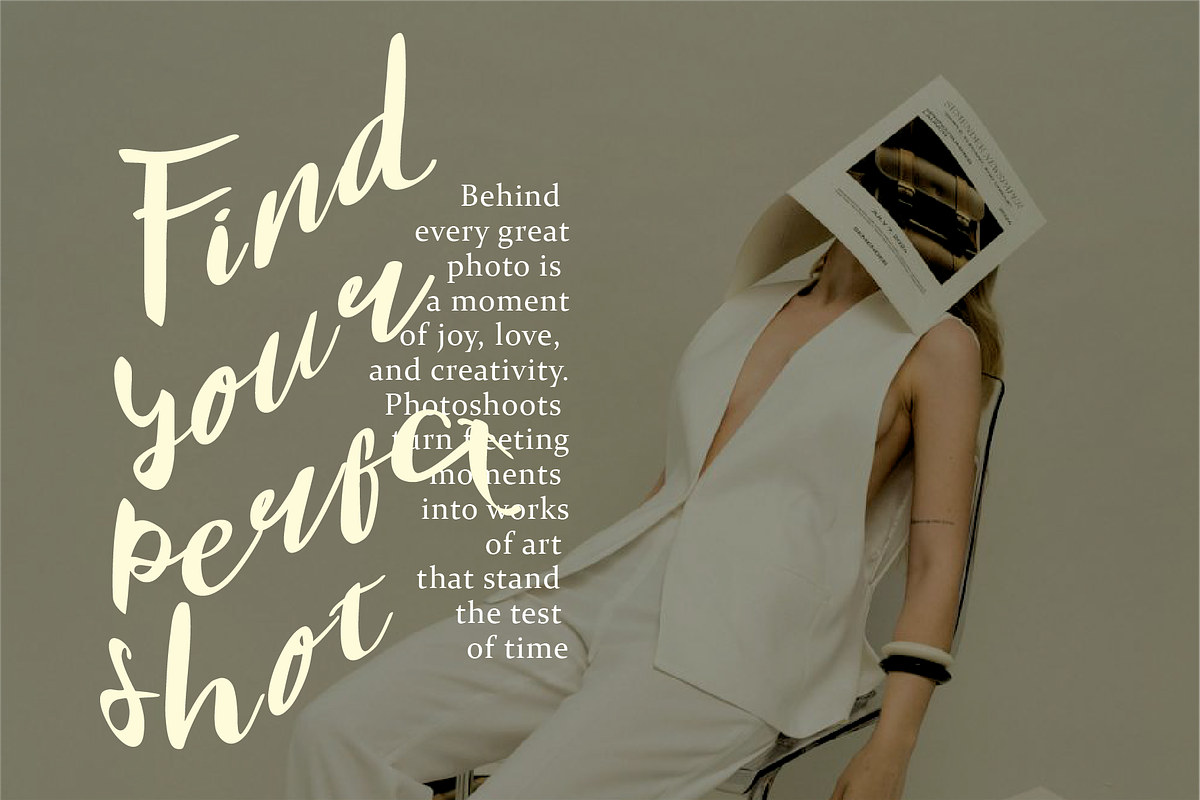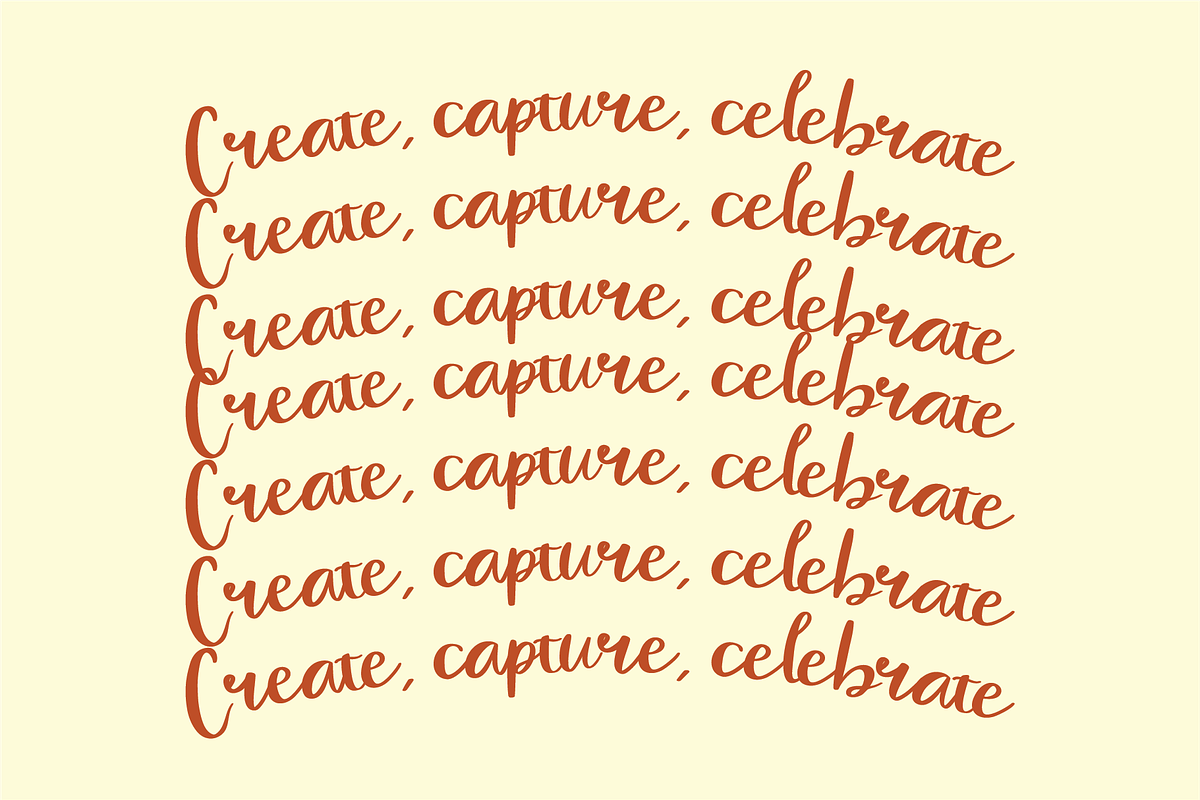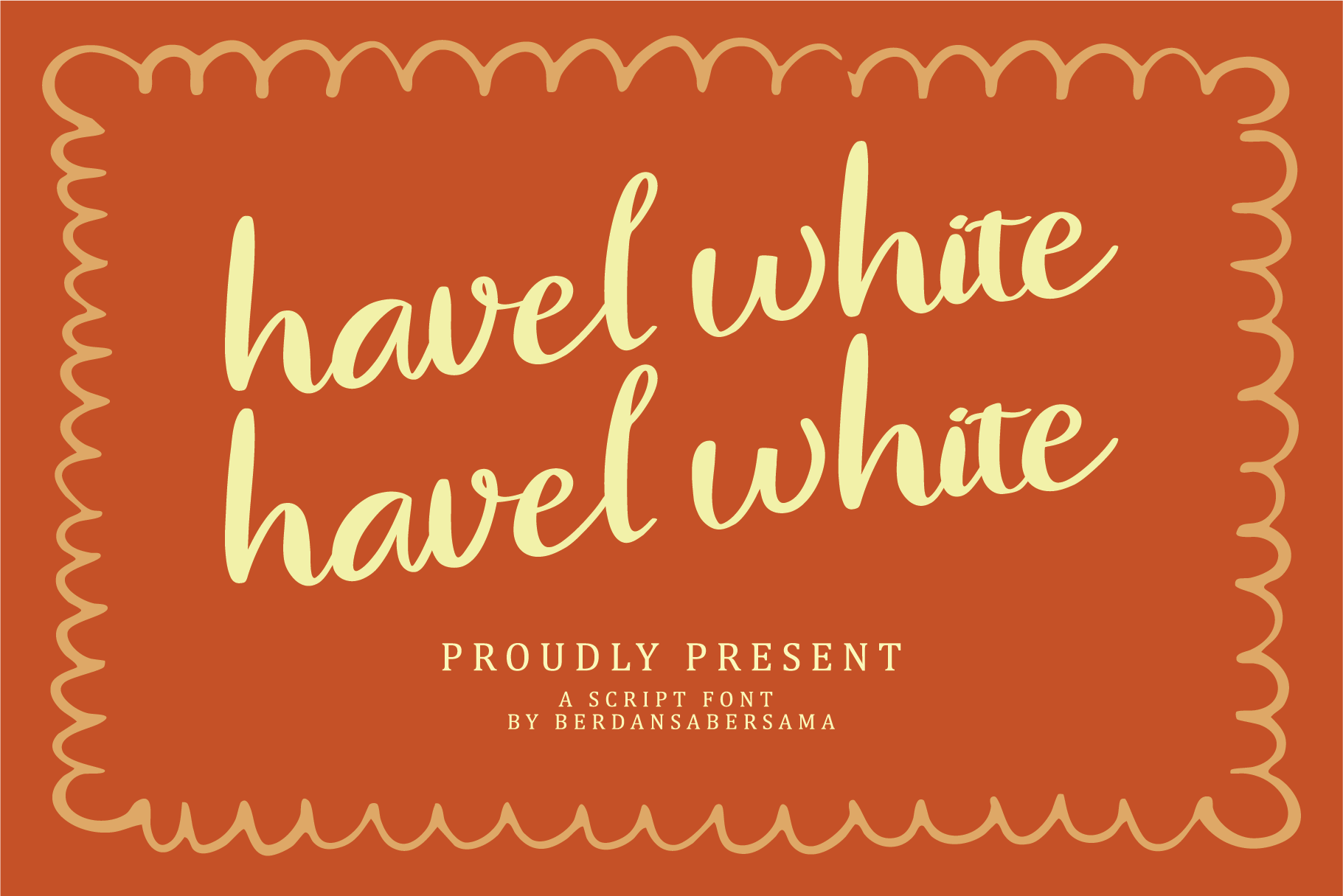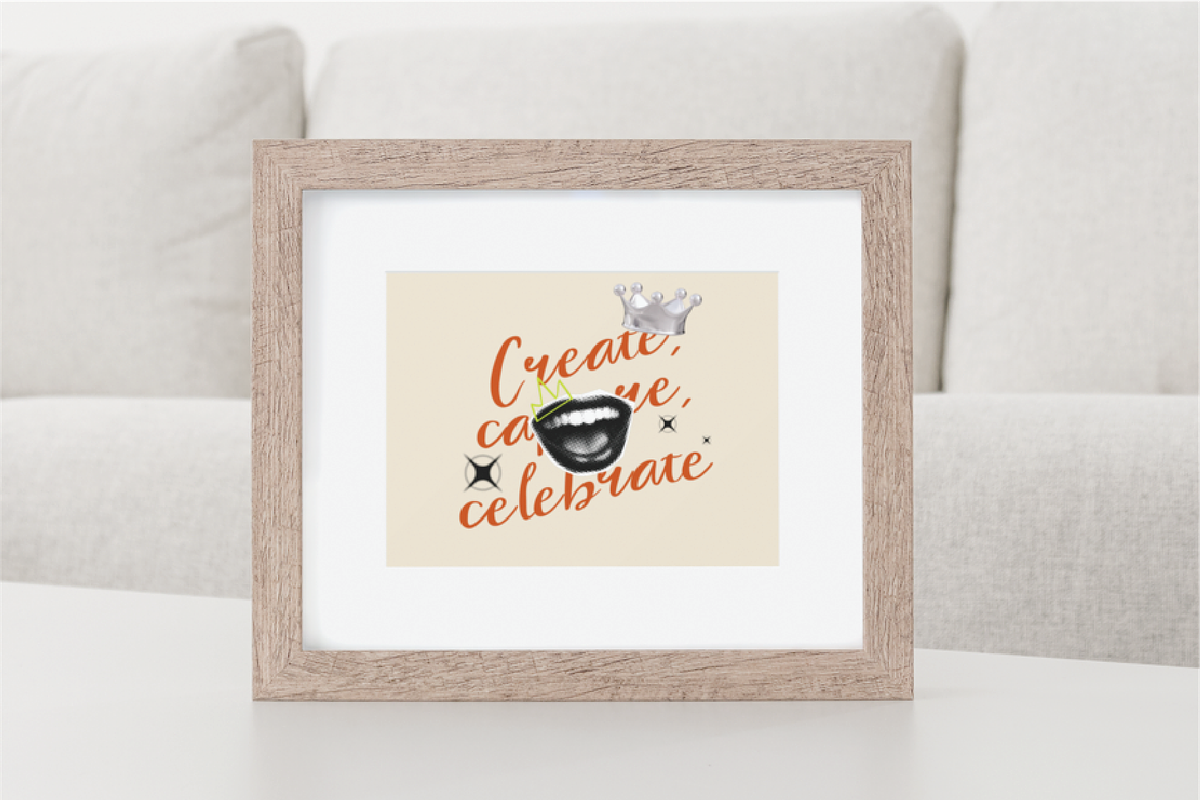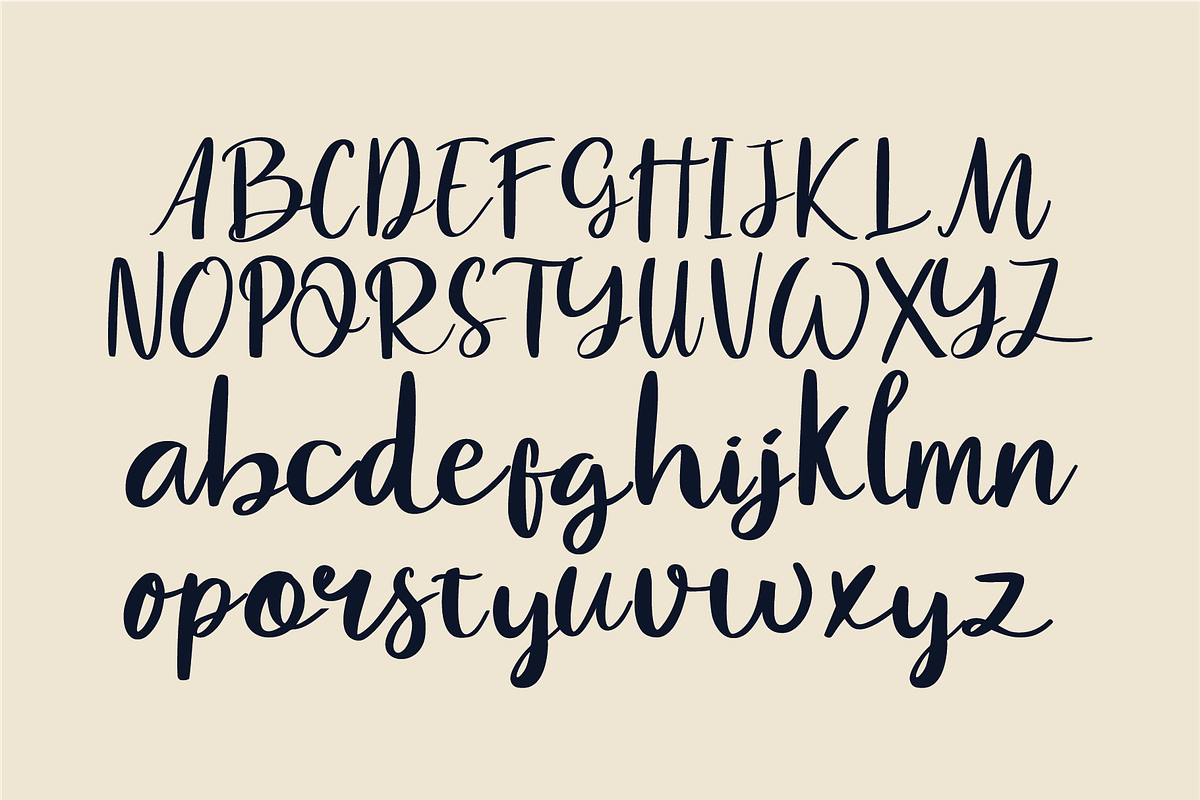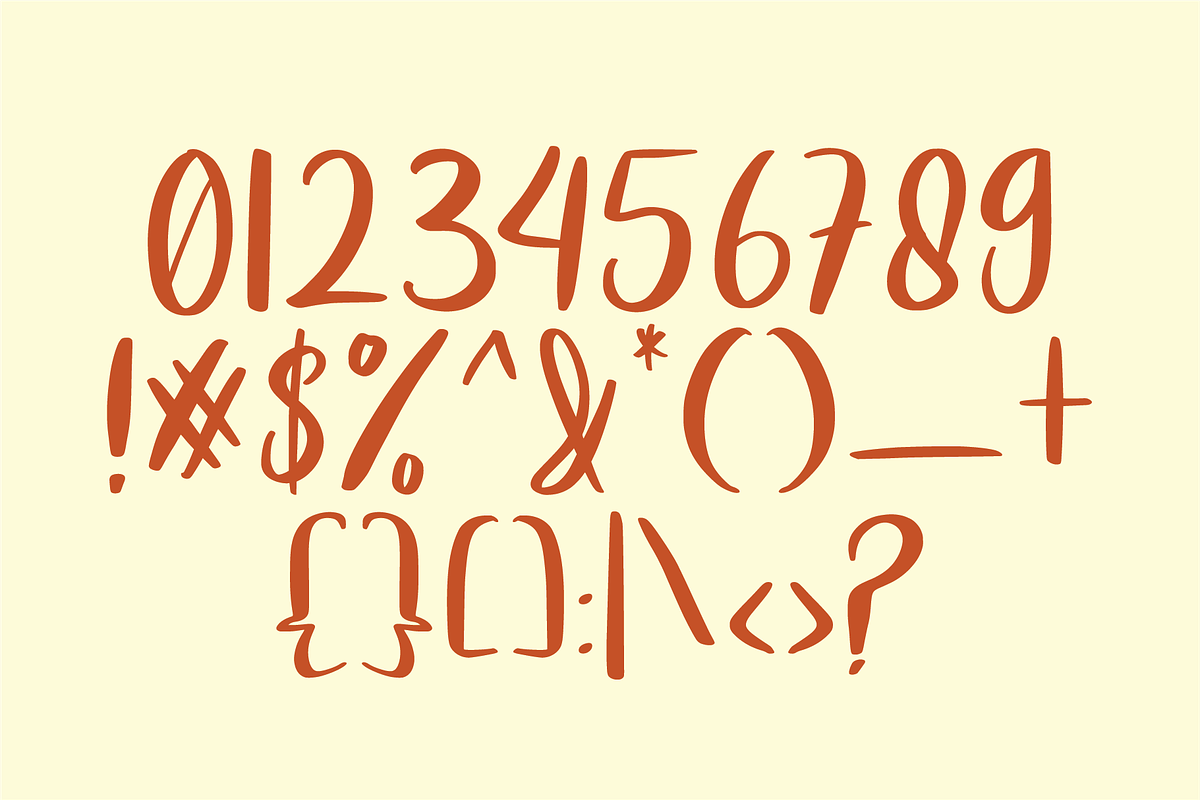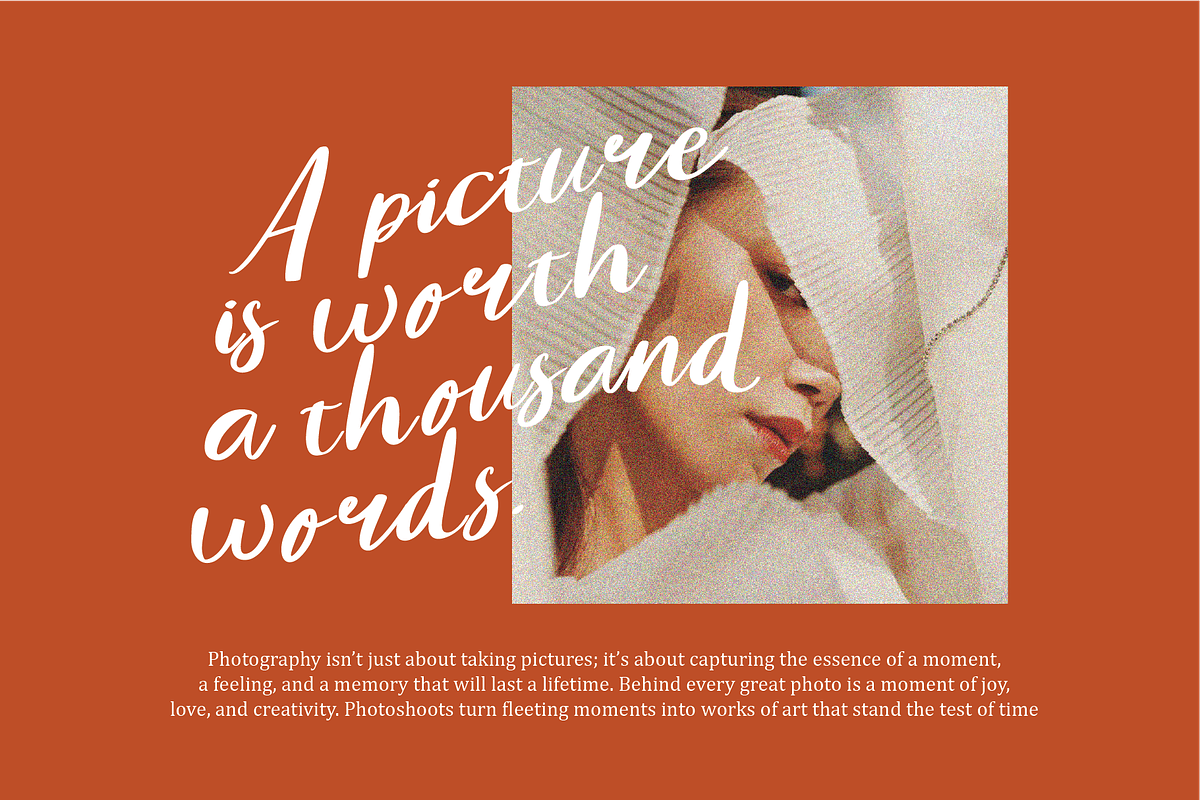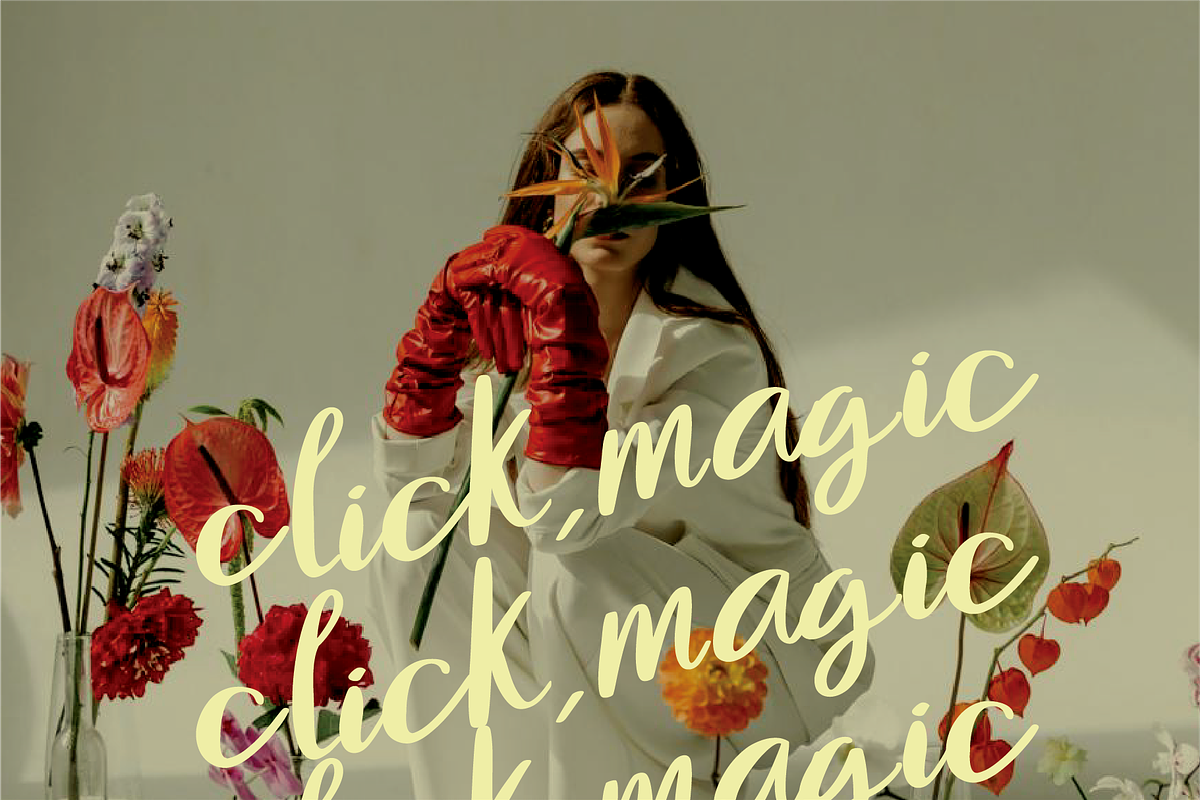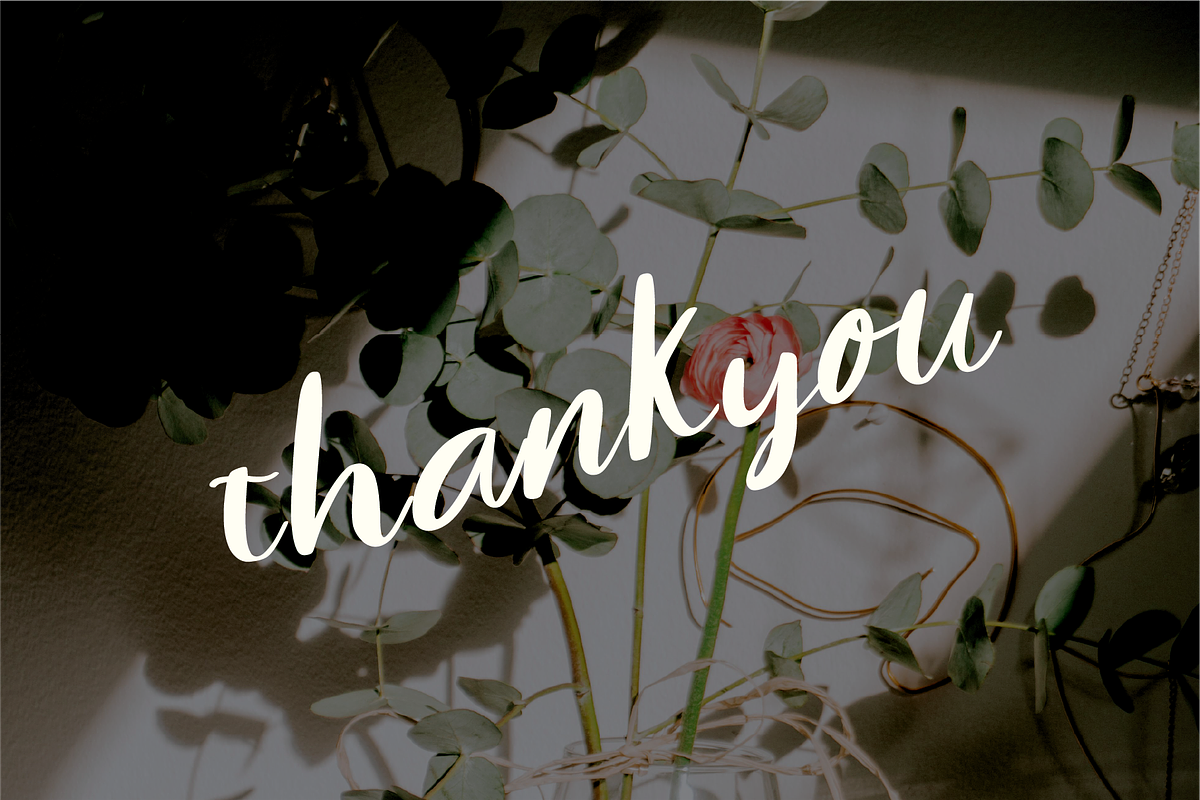
Havel Whie Script Font
Havel White is a smooth handwritten script font that carries a gentle and inviting charm. Designed with soft curves and flowing letterforms, it feels effortless, warm, and naturally expressive—just like handwriting from a personal note or journal.